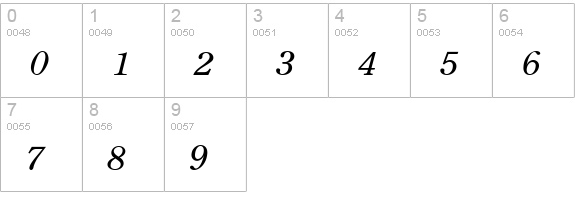
Century Retrospective Light SSi Light Italic Font Details
Century Retrospective Light SSi Light Italic is a refined, elegant, italic variant in the Century typeface family \xE2\x80\x94 well suited to elegant body text, refined sub-headings, and luxury branding.
Century Retrospective Light SSi Light Italic font is a beautifully designed typeface that exudes elegance and sophistication. With its delicate and slanted italic style, this font is perfect for adding a touch of class to any project. Whether you're creating invitations, branding materials, or editorial designs, Century Retrospective Light SSi Light Italic font will make your text stand out with its timeless charm. The best part is that this stunning font is available for free download at FontsMarket.com. You can easily enhance your design projects with this high-quality typeface without any cost. So why wait? Download Century Retrospective Light SSi Light Italic font today and elevate your designs to the next level.